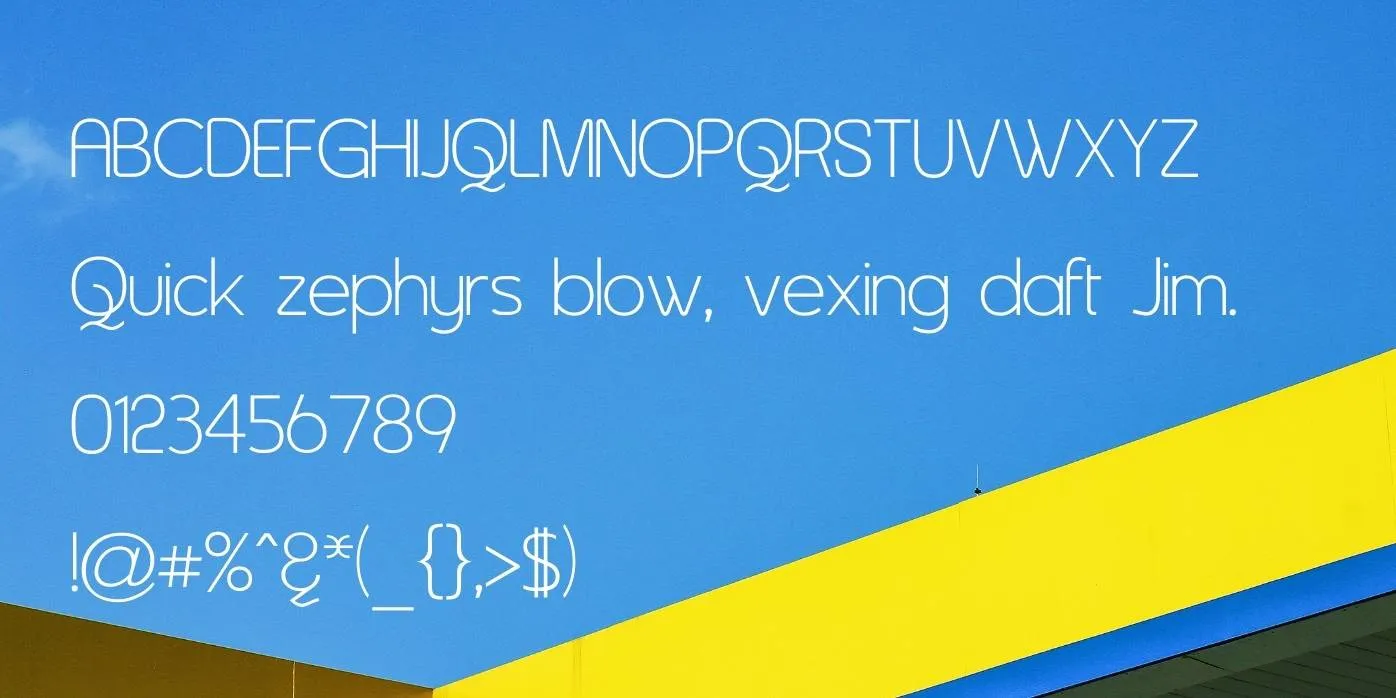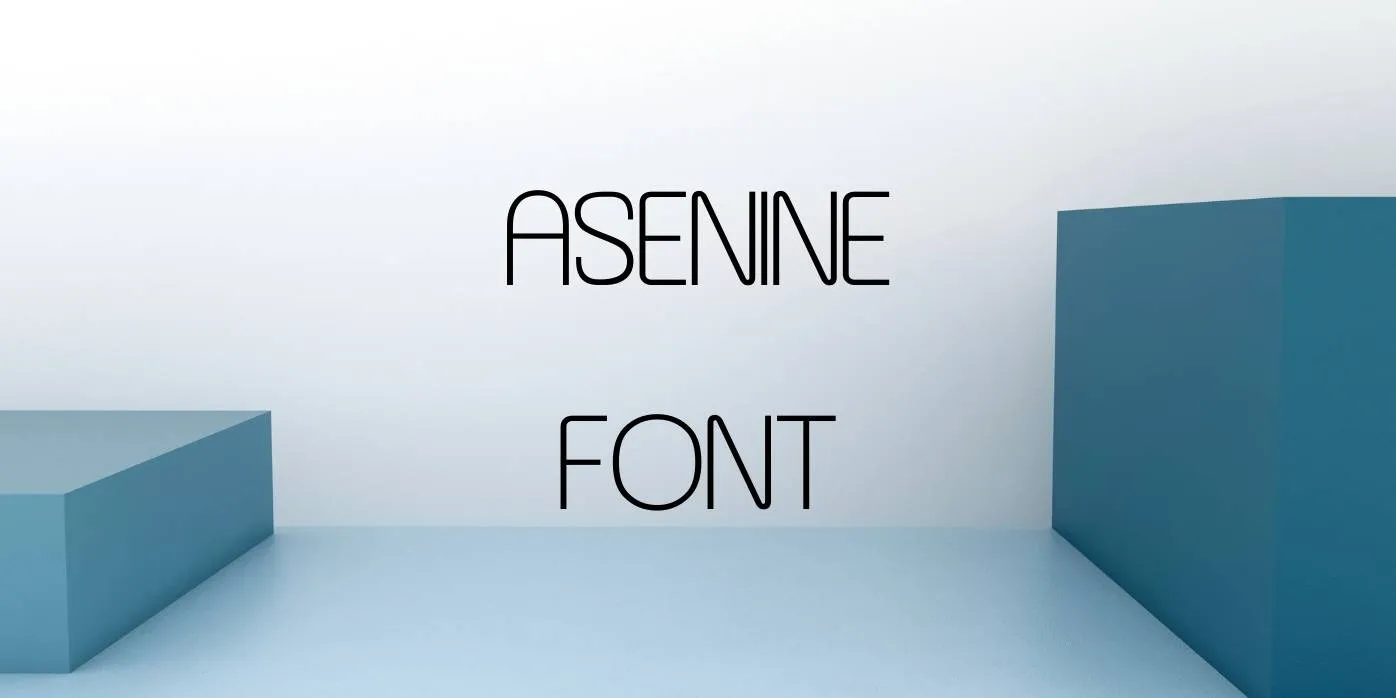
Asenine Font
Introducing a very elegant and modern typeface that is Asenine Font. The simple style font belongs to a Sans Serif Typeface family. The designer of this flawless font is Apostrophic Labs. It has many features and functions that are available on our website.
The font family has 4 unique styles contains Regular, Thin, Super Thin, and Wide as well. The typeface has the capability to support many languages. It has many features consisting of Uppercase and lowercase letters, Unusual symbols, Numbers, Best Alternates, and many special characters also. One of the greatest things about this typeface is that it is free for any place.